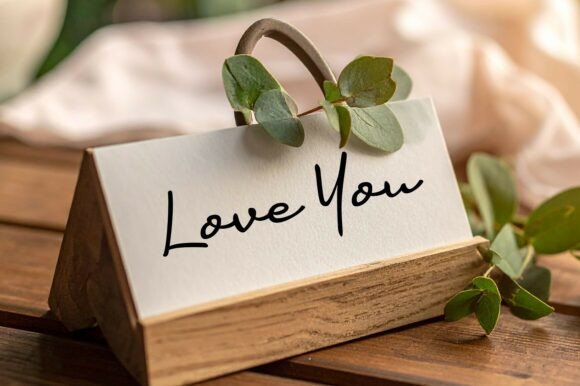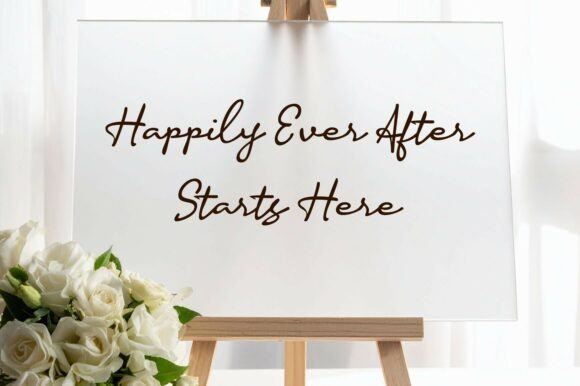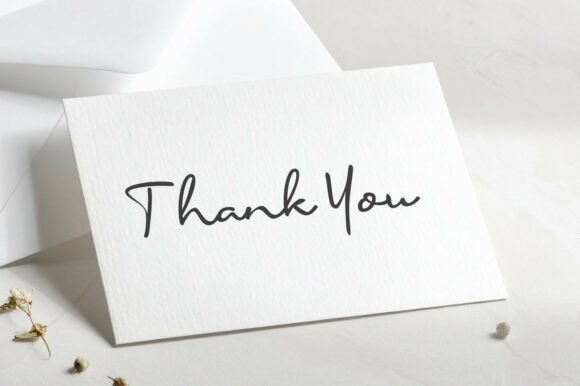
Introducing Accountant Signature Font: Elevate Your Designs with Elegance and Sophistication
In the world of typography, the right font can make all the difference in conveying the intended message and aesthetic of a project. For designers and crafters seeking to add a touch of professionalism with a personal, handcrafted feel, the Accountant Signature Font is an exceptional choice. This elegant and sophisticated script font seamlessly blends the formality required for professional use with the warmth and approachability of a handwritten signature.
The Essence of Accountant Signature Font
Accountant Signature is more than just a typeface; it’s a statement of authenticity and trustworthiness. Its flowing strokes and refined curves are meticulously designed to evoke a sense of luxury, personal care, and genuine connection. Unlike many formal fonts that can feel rigid and impersonal, Accountant Signature offers a unique warmth that makes it perfect for projects where making a memorable visual impression is key.
Key Features of Accountant Signature Font
• Elegant and Sophisticated: With its flowing strokes and refined curves, Accountant Signature exudes elegance and sophistication, making it ideal for high-end projects.
• Legible and Professional: Despite its elegant nature, this font maintains a high level of legibility, ensuring it remains professional and clear in various applications.
• Unique Warmth and Approachability: It strikes a perfect balance between formality and warmth, offering a refreshing alternative to traditional typefaces.
• Versatile: Suitable for a wide range of projects, from luxury branding and high-end advertising to personal stationery and creative crafts.
Applications of Accountant Signature Font
The versatility of Accountant Signature Font makes it suitable for various design projects. Here are some of the most impactful applications:
• Luxury Branding: Elevate your brand with a sophisticated and elegant typeface that communicates luxury and high-quality service.
• Wedding and Event Stationery: Add a personal and elegant touch to wedding invitations, event programs, and thank-you cards.
• Advertising and Marketing: Stand out in advertising and marketing materials with a font that conveys professionalism and a personal touch.
• Packaging Design: Enhance product packaging with a distinctive and memorable typeface that reflects the brand’s high standards.
• Digital Media: Use Accountant Signature in digital platforms, such as website headers, social media graphics, and email newsletters, to create a cohesive and sophisticated visual identity.
Why Choose Accountant Signature Font?
In a sea of generic typefaces, Accountant Signature Font stands out for its ability to convey a sense of bespoke quality and personal connection. Here are a few reasons why designers and crafters are gravitating towards this elegant script font:
• Authenticity: It offers a genuine alternative to overused and impersonal fonts, bringing a sense of authenticity to any project.
• Memorability: The unique warmth and elegance of Accountant Signature ensure that projects stand out and leave a lasting impression.
• Flexibility: Its legibility and aesthetic make it suitable for both digital and print applications, across a variety of design contexts.
Accountant Signature Font is a powerful tool for designers and crafters looking to infuse their projects with a sense of elegance, sophistication, and personal touch. Its unique blend of professionalism and warmth makes it an excellent choice for a wide range of applications, from luxury branding and advertising to personal stationery and digital media. By choosing Accountant Signature, designers can ensure their work communicates authenticity, trustworthiness, and a memorable visual impression.
Whether you’re working on a high-end branding project, creating bespoke stationery, or simply looking for a font that adds a touch of elegance to your designs, Accountant Signature Font is an exceptional choice. Experience the difference that a carefully crafted typeface can make in elevating your designs and connecting with your audience on a more personal level.